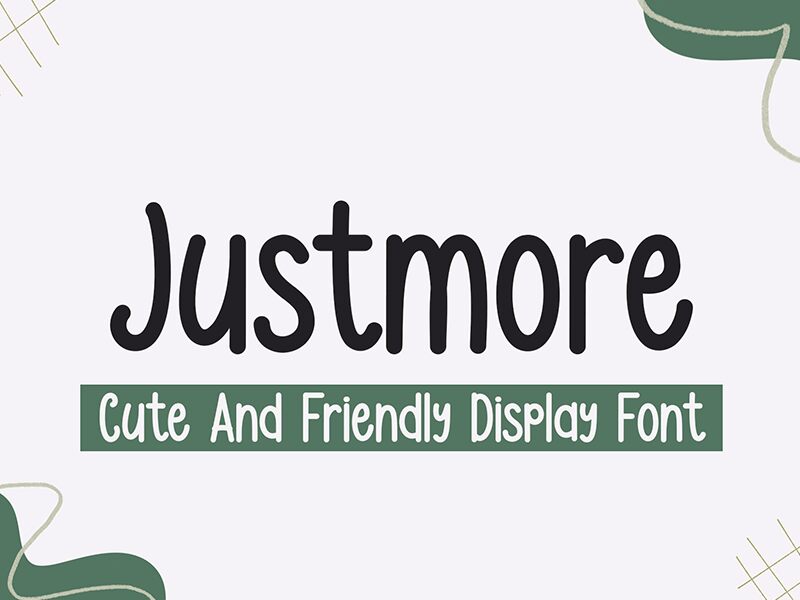
Justmore, designed by Endri Sulistyawan, is a delightful and charming semi-light brush font. Its playful and whimsical style makes it perfect for children's book covers, greeting cards, and invitations.
The gentle strokes of Justmore add a touch of innocence to any design project, making it suitable for nursery prints, baby shower announcements, and adorable product packaging. This versatile typeface adds a touch of cuteness to logos and branding materials for businesses in the fashion, beauty, and lifestyle industries.
Let Justmore bring a dash of sweetness to your next creative endeavor!